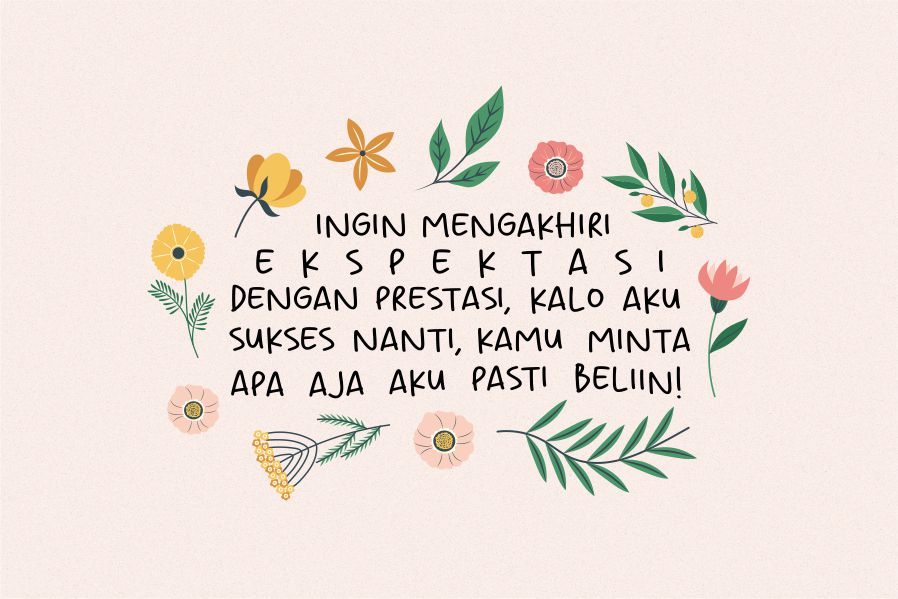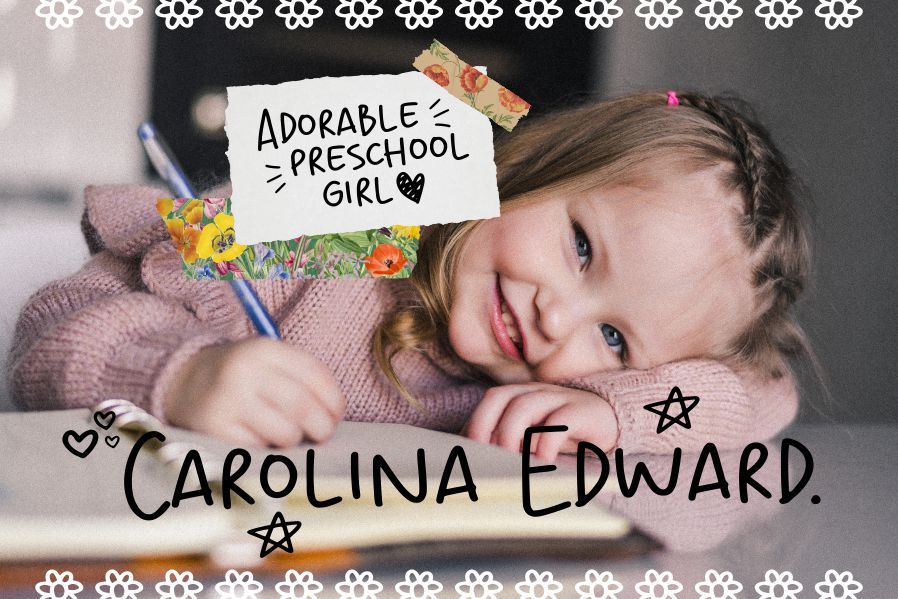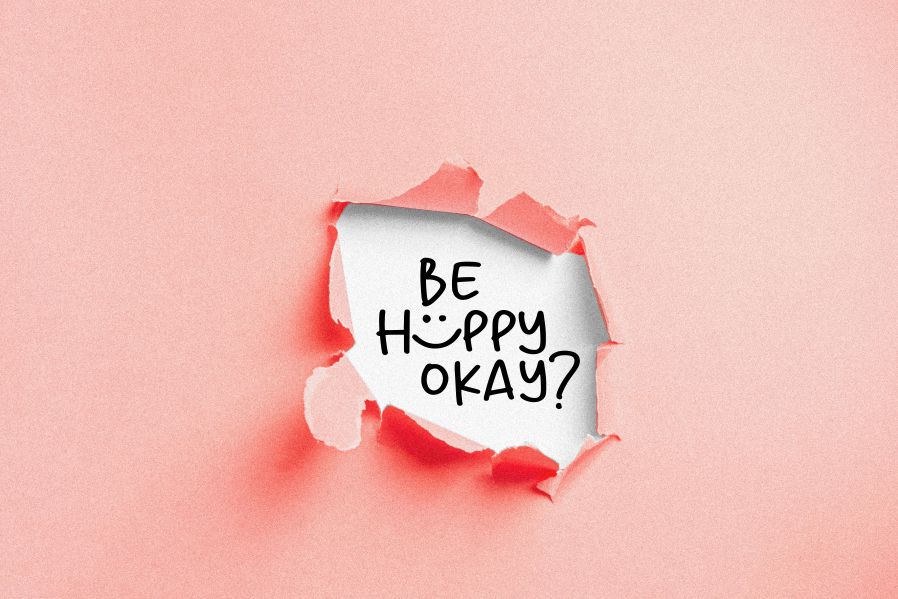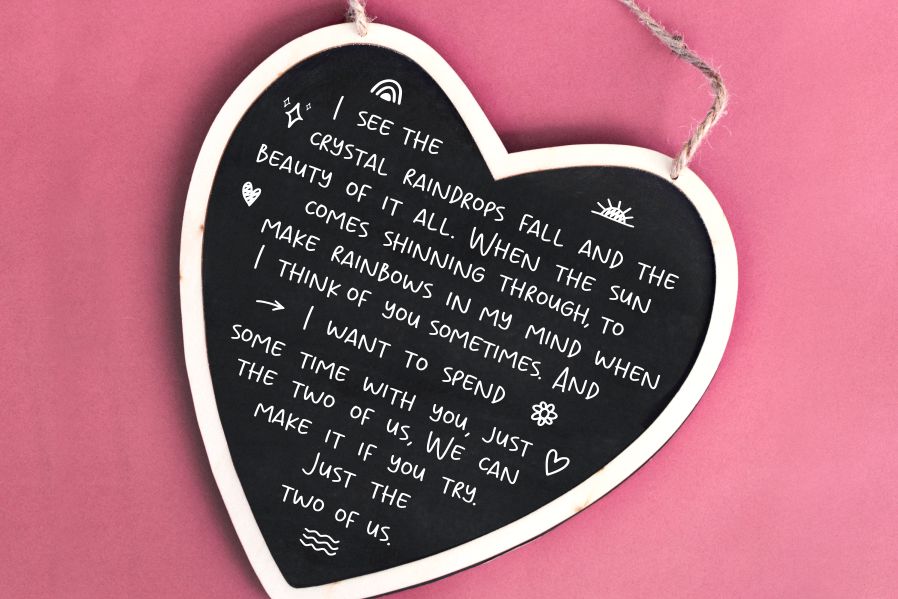
Chicola Smoothy Font
Chicola Smoothy Handwritten Font
This is a Sweet Handwritten Font plus Decorative Elements. Chicola Smoothy is perfect for any titles, logo, product packaging, branding project, megazine, social media, wedding, or just used to express words above the background. Chicola Smoothy also come with Multi-Lingual Support.